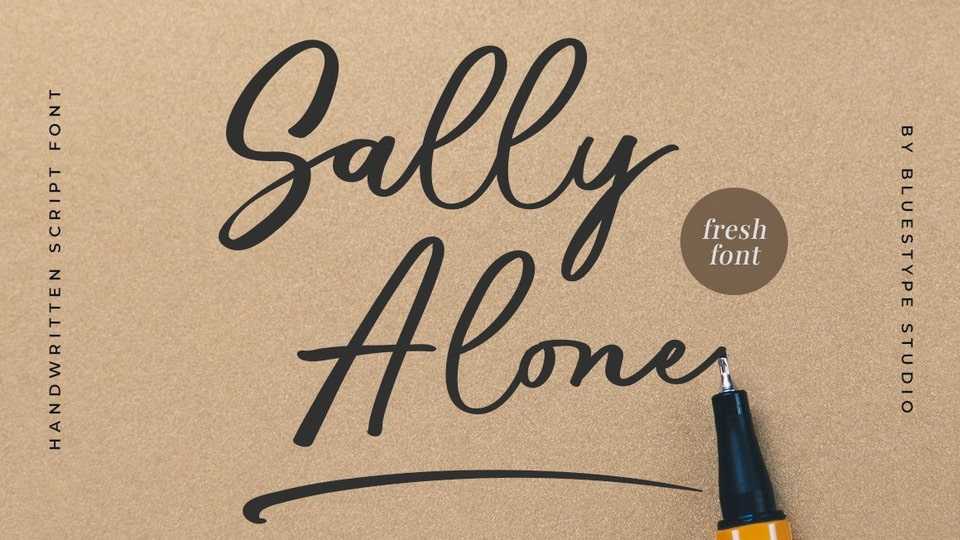
Download Sally Alone font, an incredibly stunning script that will turn any design idea into a true stand out. This font is perfect for use on branding, business cards, weddings, t-shirt designs, logos, magazines, quotes, fashion, watermarks, invitations, social media post.